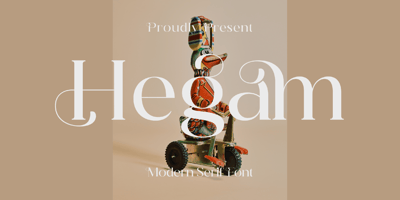
Hegam Font Family was designed by Heru Utama Putra and published by Letterena Studios. Hegam contains 2 styles and family package options. Hegam is an elegant and delicate serif font. It is PUA encoded which means you can access all of the glyphs and swashes with ease! Add it confidently to your favorite creations and let yourself be amazed by the outcome generated.